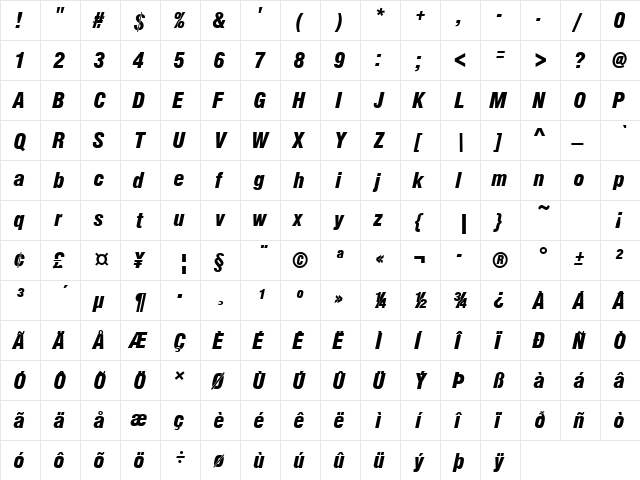
Nimbus Sans Becker PBlaCon Italic
Design Context for Nimbus Sans Becker PBlaCon Typeface
Nimbus Sans Becker PBlaCon is a composed and adaptable typeface that performs quietly and consistently across a wide range of design contexts. Its italic angle brings a sense of urgency and motion to the letterforms.